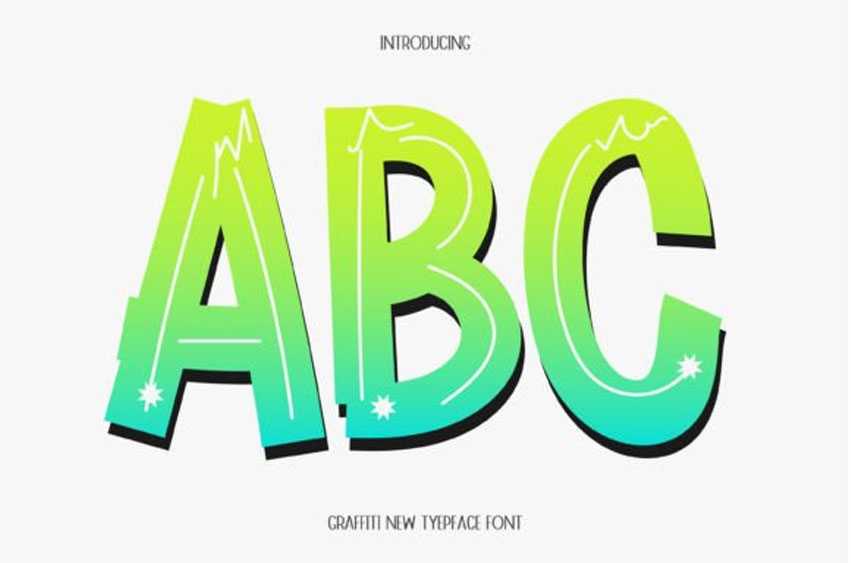
Abc Typeface Font
Abc Typeface Font is an eye-catching display font that features bold lines and a unique, attention-grabbing style.
Ideal for headlines, logos, and advertising, it’s sure to make your text stand out and captivate your audience.